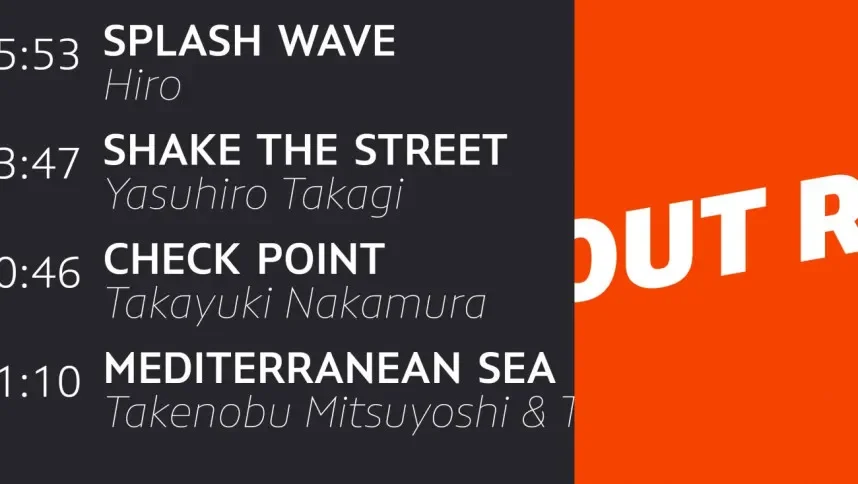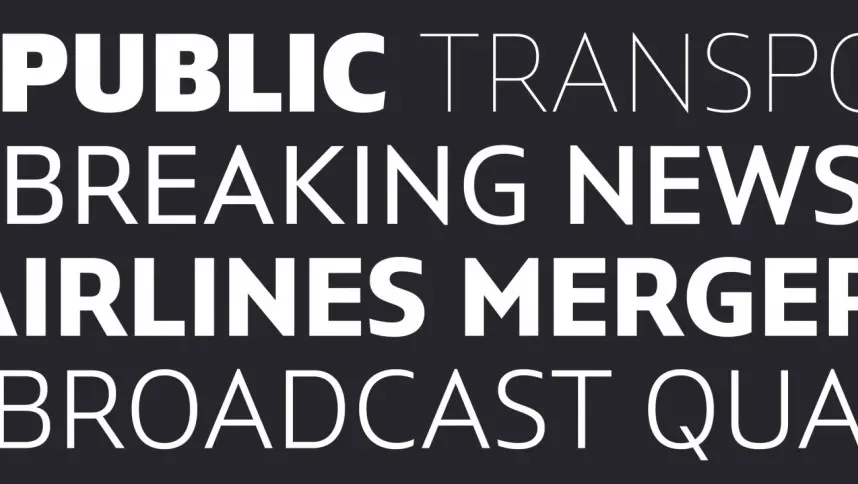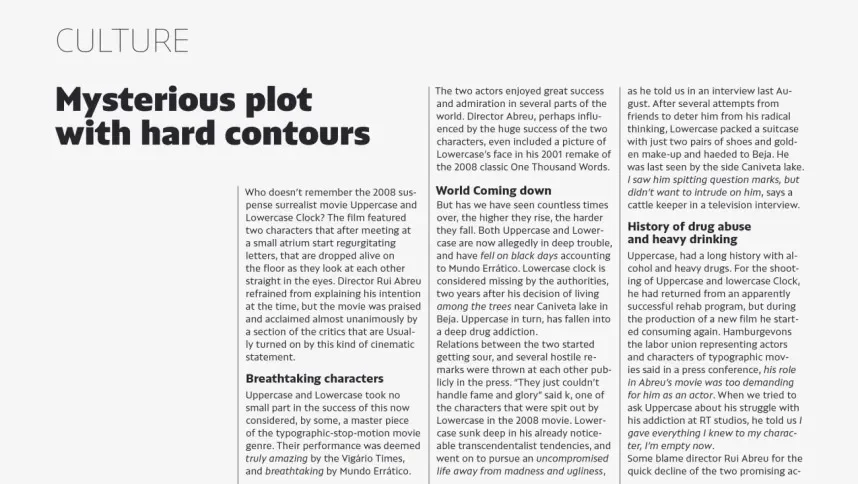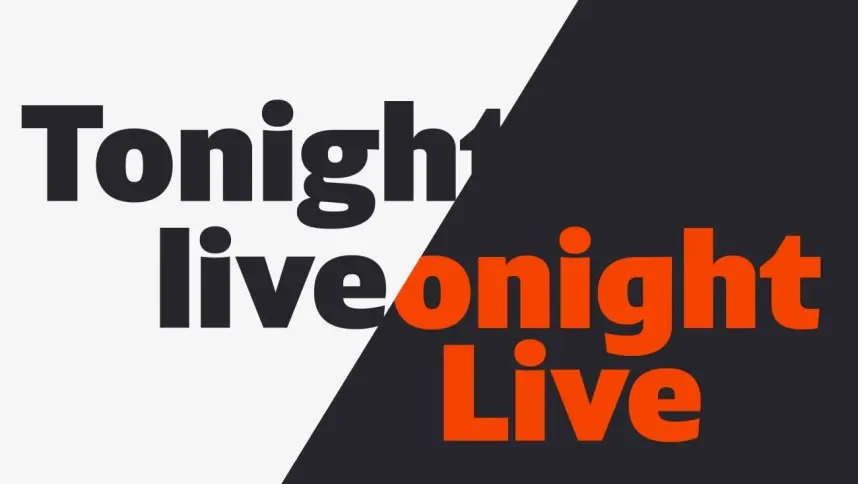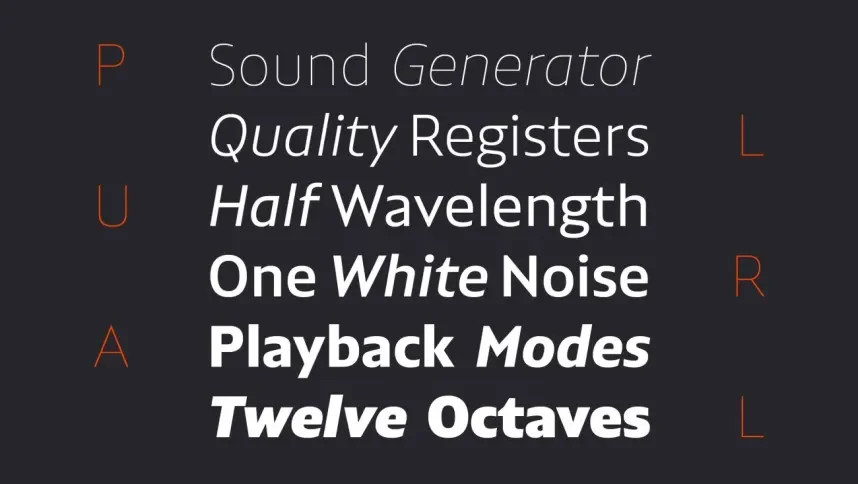
Plural Font Family addresses the challenge of maintaining consistent typography across complex branding and layout systems. Designers often rely on font families with multiple weights to build flexible design structures.
Plural Font Family is a modern sans-serif font family featuring clean letterforms, moderate stroke contrast, and consistent spacing. The design supports readability in headings, subheadings, and short body text, making it suitable for structured layouts.